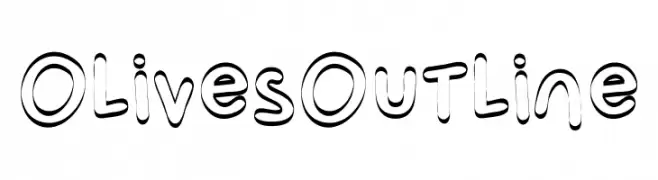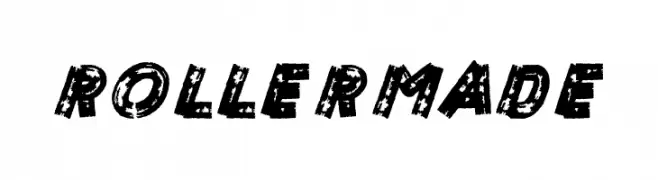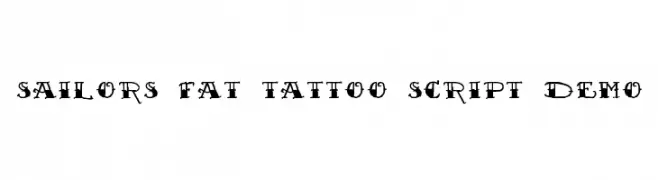
( LeoSupply.co - leosupply.co )
A bold, distressed font with a roller-printed, textured appearance.
( Out Of Step Font Company - outofstepfontco.com )
A bold, decorative font with a vintage tattoo style.
( Shara Weber - sharasfonts.com )
A playful, outlined font with bold, rounded characters.